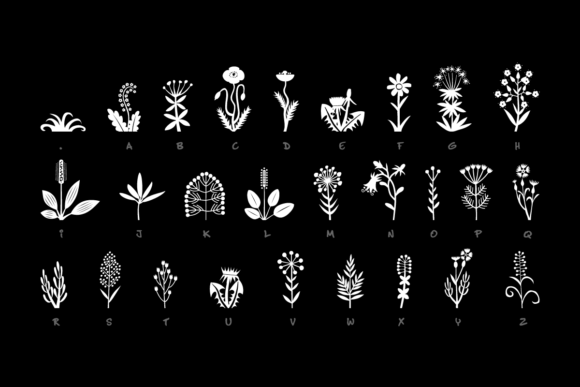
**Makalu: Embracing the Beauty of Nature**
Unleash your creativity and let your designs blossom with Makalu, the font that captures the essence of nature's delicate beauty. Inspired by the enchanting illustrations of Zdeněk Miler, Makalu brings a unique charm to your projects, transforming them into captivating works of art.
**A Burst of Creativity in Every Petal**
Adorn your designs with an array of 27 original and distinctive illustrations, each a masterpiece of simplicity and elegance. From blooming roses to graceful daisies, Makalu offers a diverse selection that reflects the vibrant tapestry of nature. Let your imagination run wild as you incorporate these charming elements into your projects, creating designs that resonate with warmth and creativity.
**The Perfect Companion for Flower Shops**
For flower shops seeking to create captivating branding materials, Makalu is the ultimate choice. With its playful and whimsical style, Makalu adds a touch of magic to business cards, posters, and flyers. Its ability to evoke emotions and create a lasting impression will leave your customers spellbound.
**An Oasis of Elegance for Invitations**
Plan an unforgettable occasion with Makalu, the font that lends an air of sophistication to invitations. Its distinctive illustrations add a personal touch, transforming ordinary invites into works of art. Let Makalu be the guiding light as you craft invitations that capture the essence of love, friendship, and celebration.
**A Touch of Whimsy for Personal Projects**
Whether you're designing greeting cards, scrapbooks, or simply expressing yourself through creative projects, Makalu is your perfect companion. With its versatility and charm, Makalu breathes life into your creations, adding a touch of whimsy and delight. Its ability to evoke fond memories and inspire smiles makes it the ideal choice for adding a personal touch to your projects.
**Embrace the Magic of Makalu Today**
Elevate your designs to new heights with Makalu, the font that captures the allure of nature and ignites creativity. Embark on a journey of artistic expression as you explore the endless possibilities that await. Let Makalu be your muse as you craft projects that resonate with beauty, charm, and individuality.